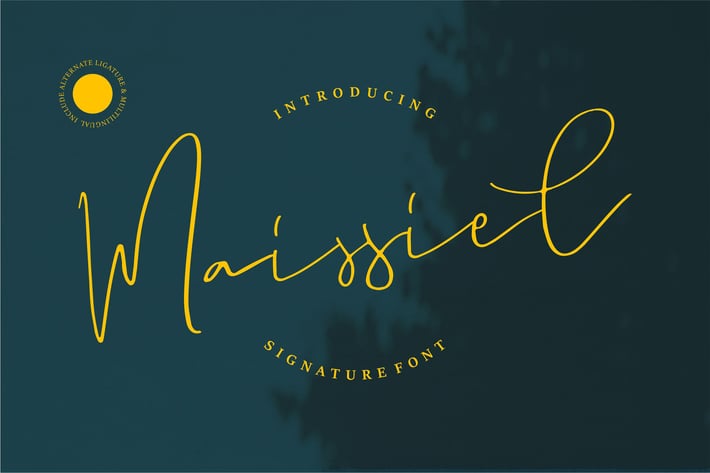
Maissiel | Signature Font
Maissiel | Signature Font with a calligraphy style, So beautiful on invitation like greeting cards, branding materials, business cards, quotes, posters, and more!